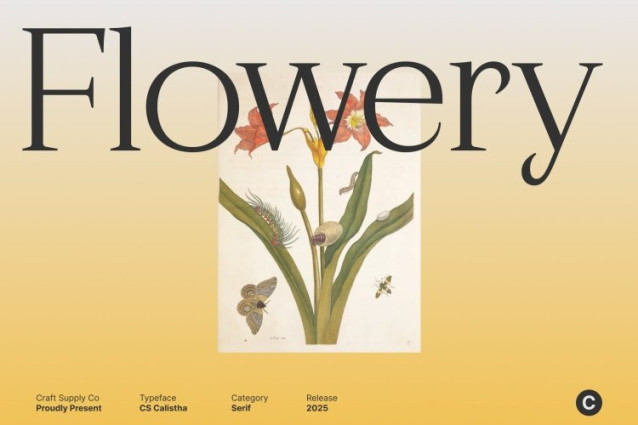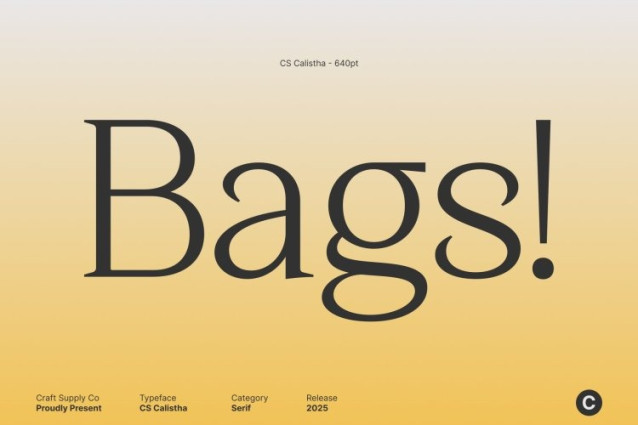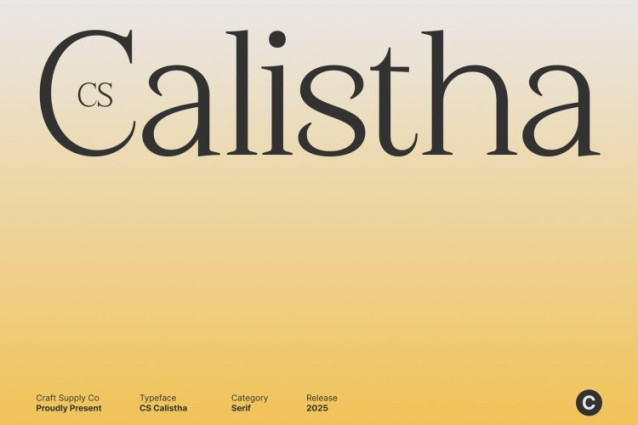
CS Calistha Font
CS Calistha Font is an elegant serif font designed to embody refinement and beauty. Its graceful curves and flowing letterforms bring a sense of sophistication to any layout, creating a timeless look that exudes confidence and class. Each stroke is carefully balanced to achieve harmony between modern precision and classic charm.
Refined Curves for a Luxurious Impression
The beauty of this font lies in its refined shapes and smooth transitions. Every curve flows effortlessly, resulting in a typeface that feels both elegant and approachable. This natural rhythm enhances readability while maintaining a polished and exclusive aesthetic perfect for designs that seek to express luxury and refinement.
Perfect for Editorials, Branding, and Design Projects
Whether used for luxury branding, editorial layouts, or high-end packaging, this font delivers sophistication at every level. Its balanced proportions and stylish character elevate your designs, turning ordinary text into a visual statement of taste and professionalism.
Timeless Design for Modern Elegance
This font bridges the gap between classic serif traditions and modern design sensibilities. Its flowing elegance and refined construction make it the ideal choice for creative professionals aiming to craft visuals that feel luxurious, intelligent, and beautifully timeless.